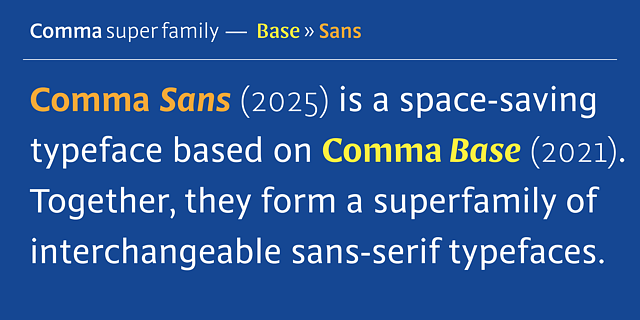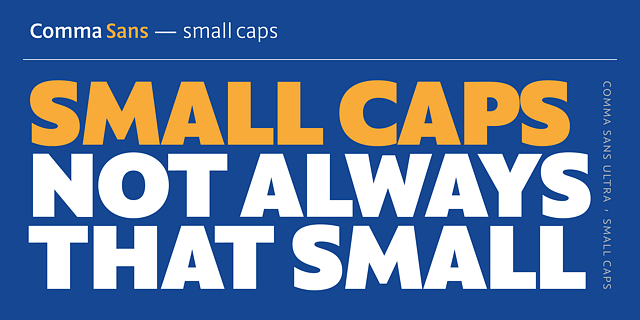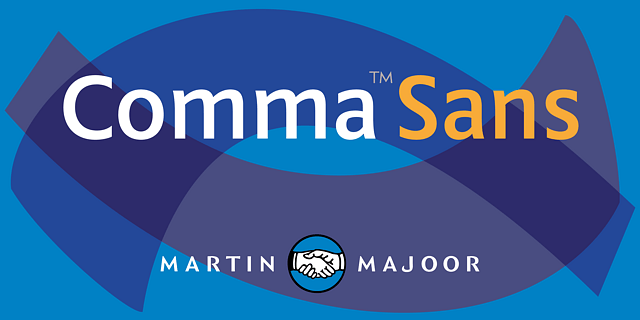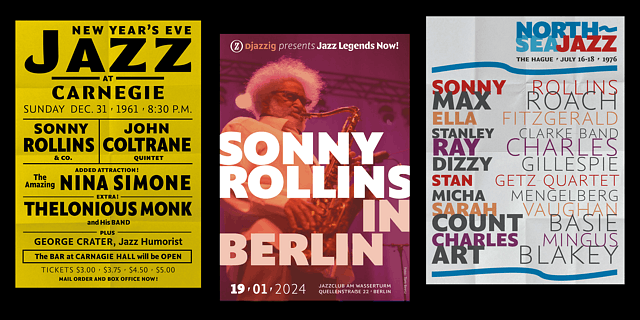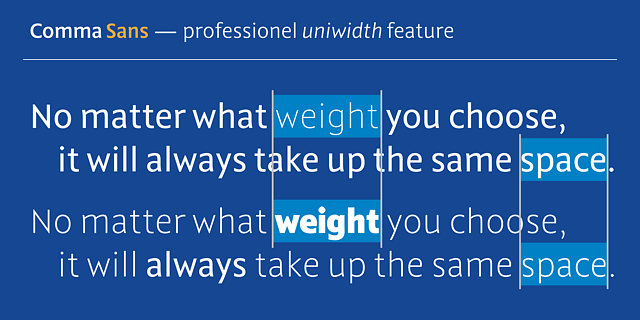
The Comma trilogy is a range of three closely connected typefamilies (Comma BASE, Comma SANS, Comma SERIF), each with its own voice.
Comma BASE is not a typical sans; its unusually high contrast pushes it into serif territory.
Comma SANS uses the skeleton of Comma Base for geometric, low-contrast characters.
Comma SERIF carries the warmth and angularity of Comma Base, while adding strong serifs, classical proportions, and a true italic with calligraphic details.
Comma SANS, with its eight weights, is ideal for headlines, but its space-saving proportions, refined kerning, and well-balanced justification make it equally effective for body text – it is a true workhorse. Its expressive character, combined with its formal geometric stroke endings, makes it highly suitable for everything from signage and user interfaces to editorial work and scientific publications.
Comma SANS is uniwidth, a powerfull feature, highly appreciated by designers: No matter what weight you choose, it will take up the same space.
Pairing Comma SANS with Comma SERIF is a great way to set different sorts of information, like text, captions and titles, it is an ideal combination for editorial use.
Comma SANS includes 16 styles, supports 37 languages, offers OpenType features for advanced typography, and includes small caps and ligatures.